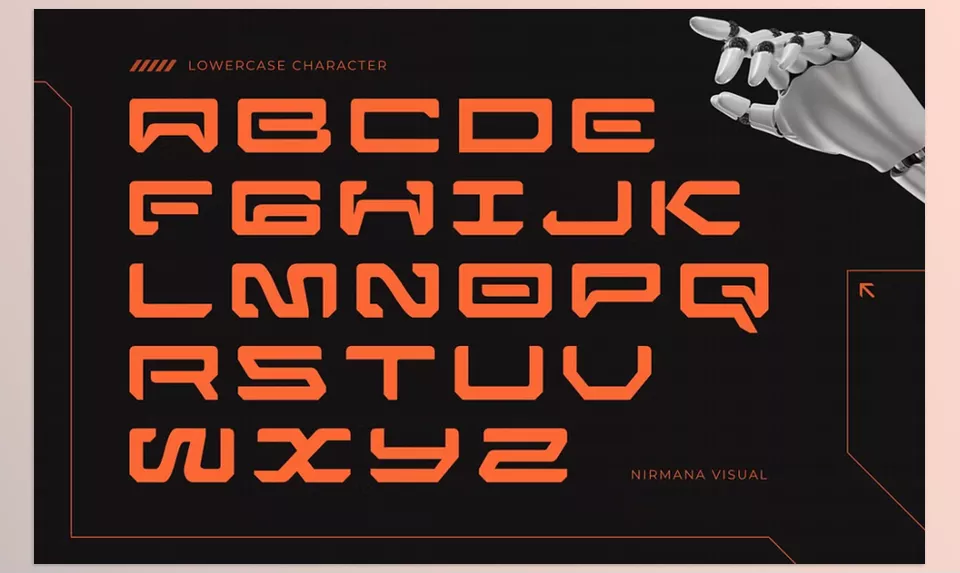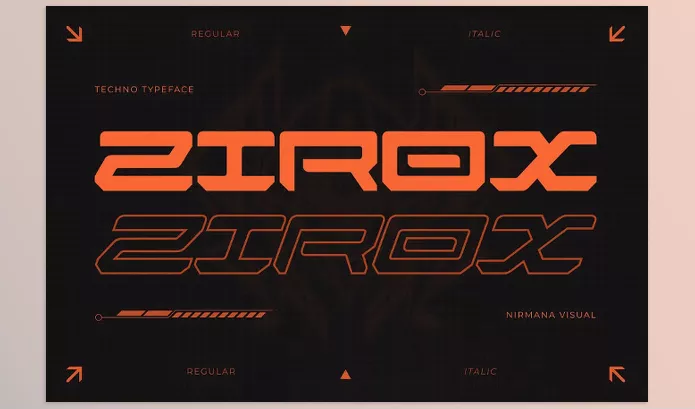
Zirox Cyberpunk Branding Logo Font stands out with its striking appearance. This font’s futuristic look, designed for cyberpunk aesthetics, with glowing edges and contours, gives it a contemporary, digital feel. It works well for edgier brands in the gaming industry, tech startups, or sci-friction endeavours.
Nirmana Visual – Zirox Cyberpunk Branding Logo Font Features
• Futuristic Design: Fascinating Look Driven by cyberpunk themes with a modern and digital vibe.
• Bold Aesthetic: Captivating Impact Targeted to make strong impacts in logos and branding.
• Versatile Use: Gaming, Tech, and Sci-Fi projects.
• Sharp and Sleek: Bold Design Unique look with sharp edges and sleek lines.
• High-Tech Energy: Edgy style that elevates brand presence.
Preview Zirox Cyberpunk Branding Logo Font
Image 1: Discover the sleek and bold design that defines modern branding.
Zirox Cyberpunk Branding Logo Font - Discover the sleek and bold design that defines modern branding.
Image 2: Add a dynamic twist to your visuals with this futuristic font.
Zirox Cyberpunk Branding Logo Font - Add a dynamic twist to your visuals with this futuristic font.